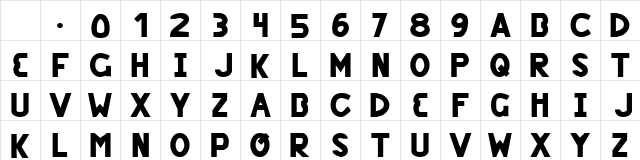
Complete Picnic Generator Heavy glyph index. Displaying only characters natively supported by Picnic Generator Heavy font.
Picnic Generator is a composed and adaptable typeface that performs quietly and consistently across a wide range of design contexts.